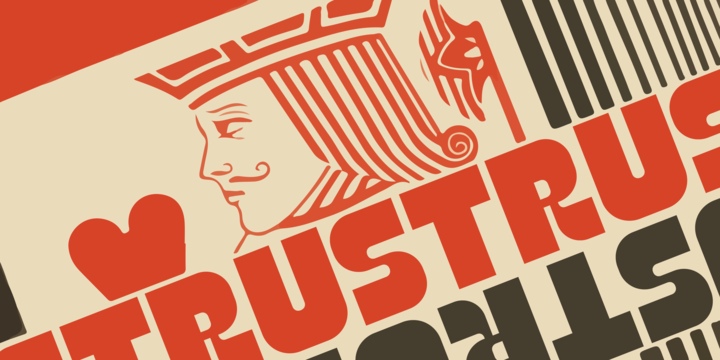
PAG Trust Font
This reliable typeface is perfect for financial institutions, legal firms, insurance companies, healthcare branding, corporate communications, professional services, government agencies, educational materials, and trustworthy business applications.
What makes this font exciting is its dependable character combined with professional integrity, offering designers a credible typeface that captures institutional reliability while delivering authoritative presence and unwavering trustworthy sophistication.
The PAG Trust font family includes light, regular, medium, bold, and corporate variations, providing complete professional design solutions for creating confident institutional visual identities.
Whether you're developing financial service brands or crafting professional communication systems, PAG Trust Font Free Download brings exceptional institutional credibility and professional authenticity to every application. This dependable typeface combines traditional business typography with contemporary corporate design, creating letterforms that inspire confidence and establish immediate credibility. The font's reliable construction and trust-ready details make it perfect for organizations requiring immediate professional recognition.
PAG Trust Font features carefully engineered trustworthy styling with authentic institutional character that conveys genuine professional expertise. Each character has been crafted for maximum credibility impact, with balanced proportions and authoritative elements that enhance the dependable aesthetic. The font's professional qualities make it particularly effective for financial services and legal applications.
Professional designers choose PAG Trust Font for projects demanding authentic institutional credibility and trustworthy atmosphere. Its corporate heritage makes it exceptionally well-suited for banking institutions, law firms, and professional service providers. The font's versatile professional variations allow designers to control the trust intensity, from subtle corporate elegance to full institutional authority.
The complete PAG Trust Font package offers extensive corporate ornaments and professional symbols that enhance the trustworthy aesthetic. Advanced institutional features allow designers to create complex professional effects with multiple credibility-focused options. This comprehensive trust toolkit ensures authentic results whether you're creating corporate communications, professional presentations, or authoritative branded experiences that project absolute reliability and institutional integrity.